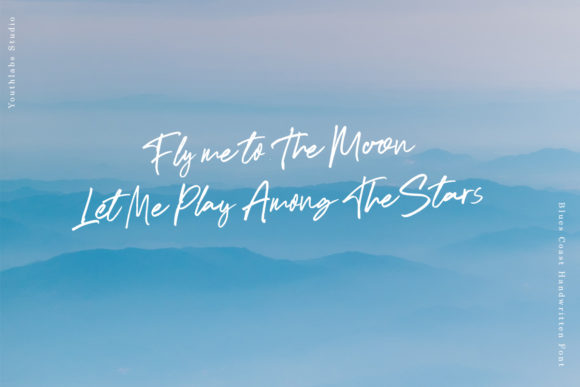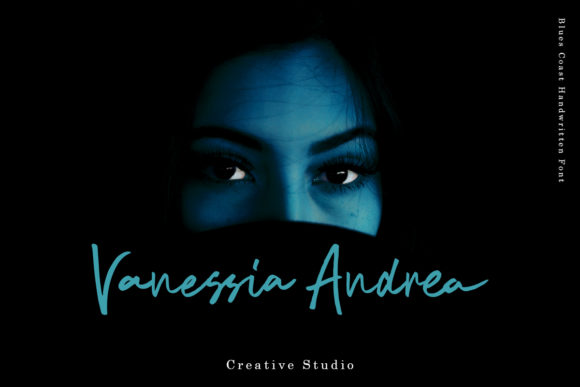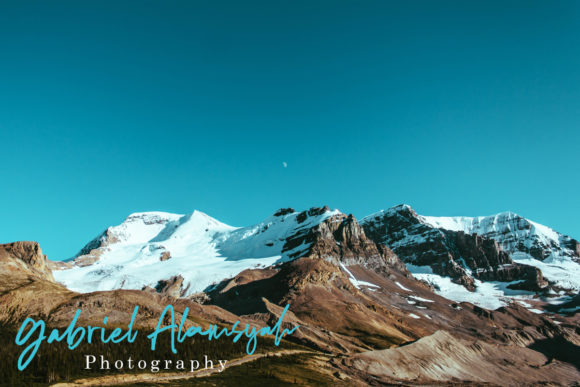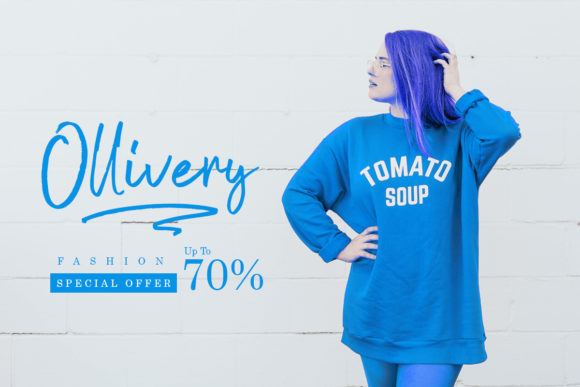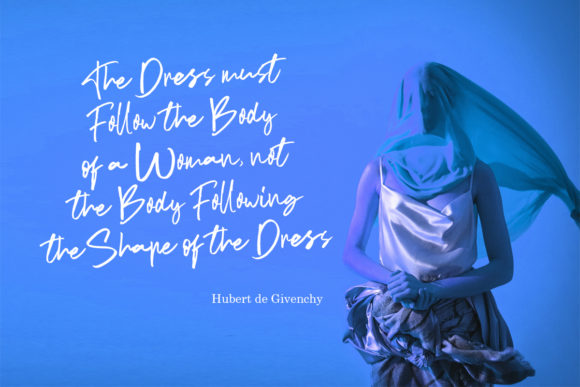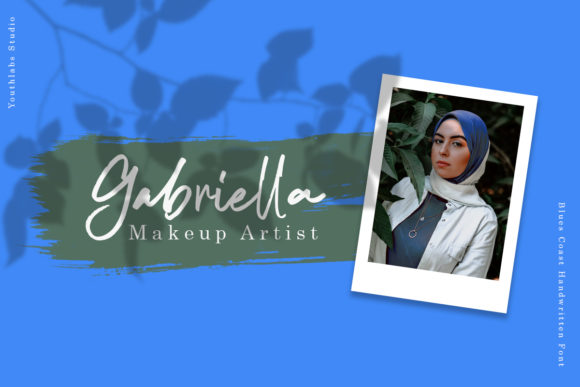
Introduction to Blues Coast Font Font
Fonts play a crucial role in design, and the Blues Coast Font font is a typeface that brings both character and versatility to any project. Whether you’re working on a branding project, a website, or a print design, the Blues Coast Font font offers a unique style that can elevate your work.
Blues Coast is a friendly and modern script font with a unique appeal.
It will add a stylish touch to any crafting project .
Key Features of Blues Coast Font Font
Why Choose Blues Coast Font Font?
The Blues Coast Font font is more than just a typeface – it’s a design tool that helps you communicate your message with style and clarity. Its unique character set and versatile design make it suitable for a wide range of applications, from elegant invitations to bold headlines.
With its carefully crafted letterforms and balanced proportions, the Blues Coast Font font ensures readability and visual appeal across all mediums.
What makes Blues Coast Font font special?
The Blues Coast Font font stands out with its unique design, exceptional readability, and versatility across various design applications.